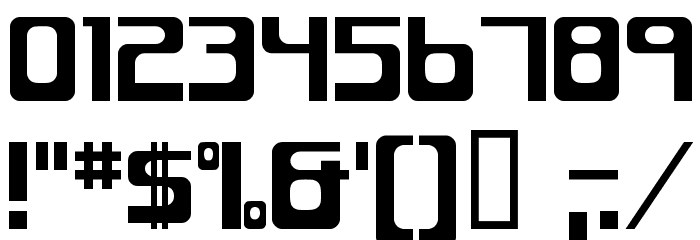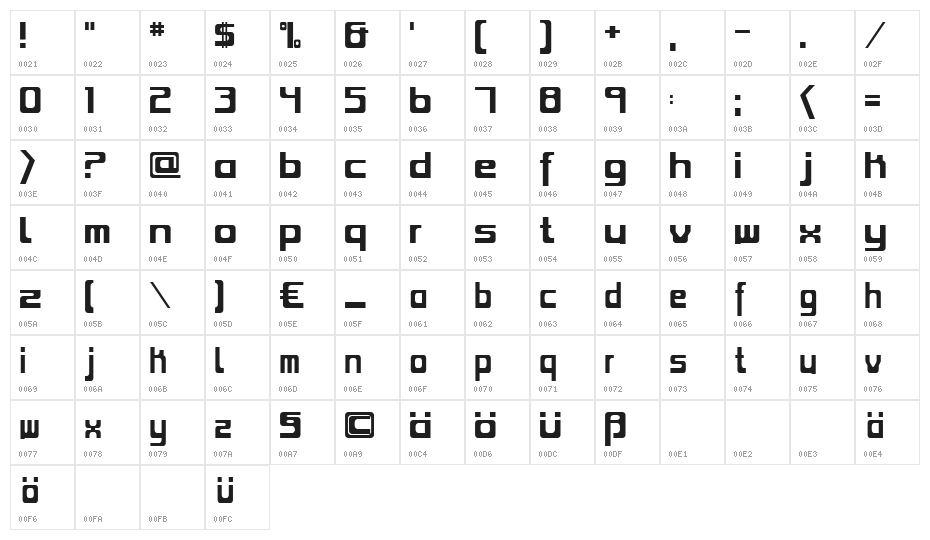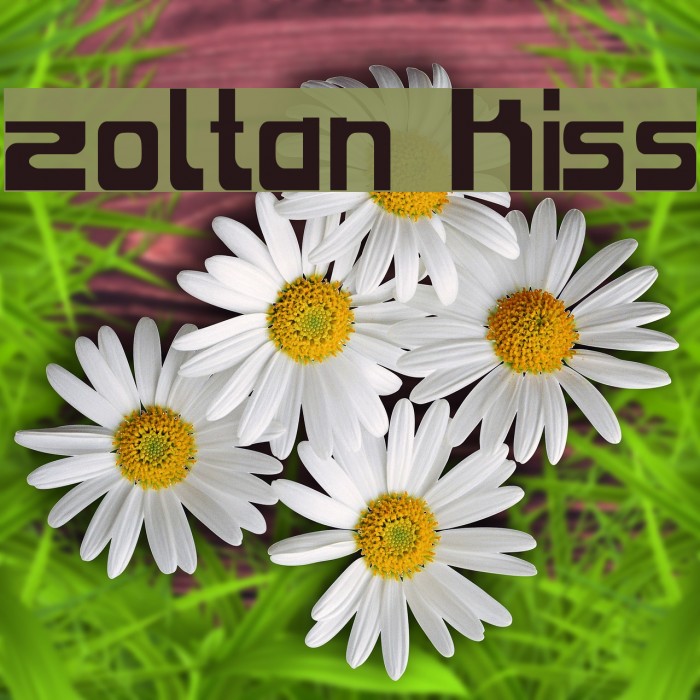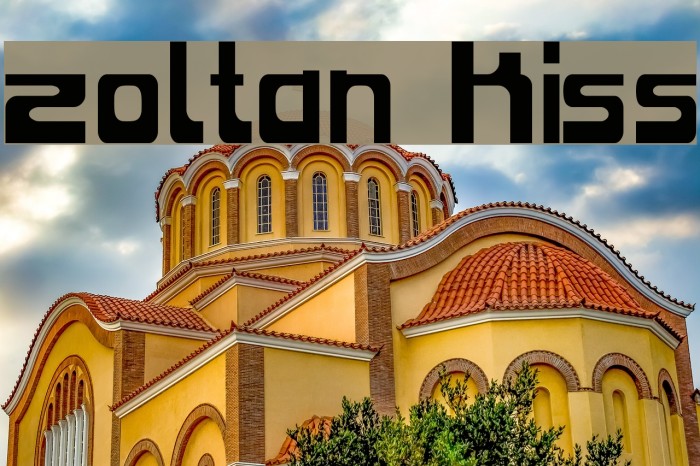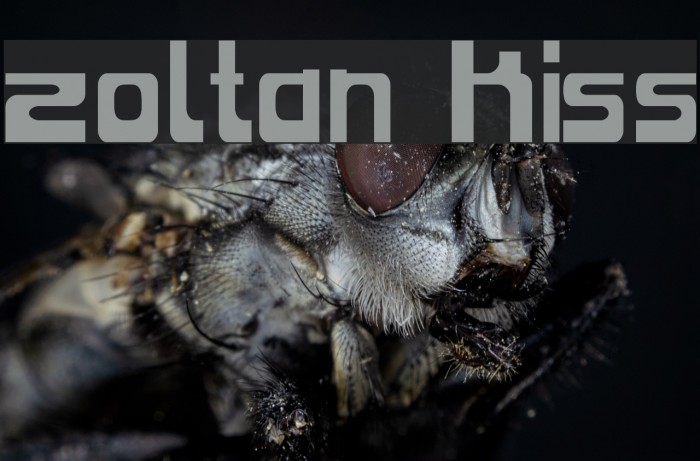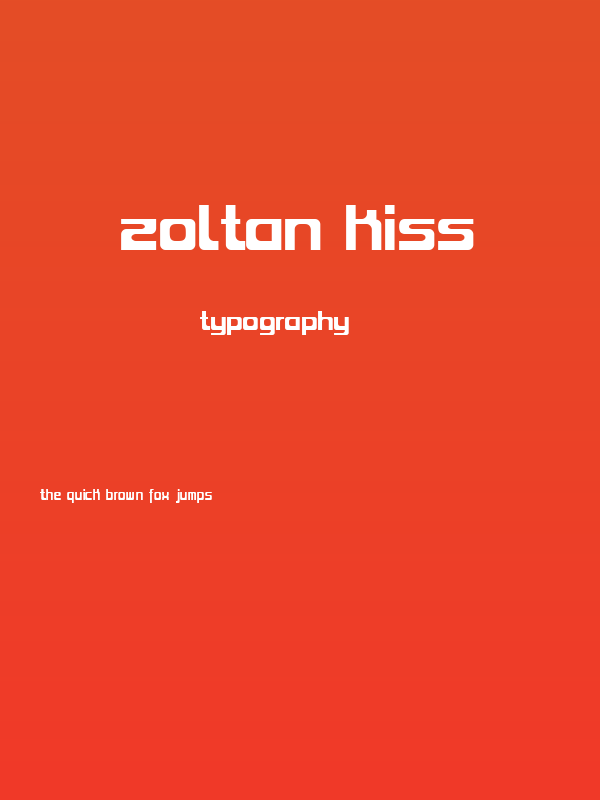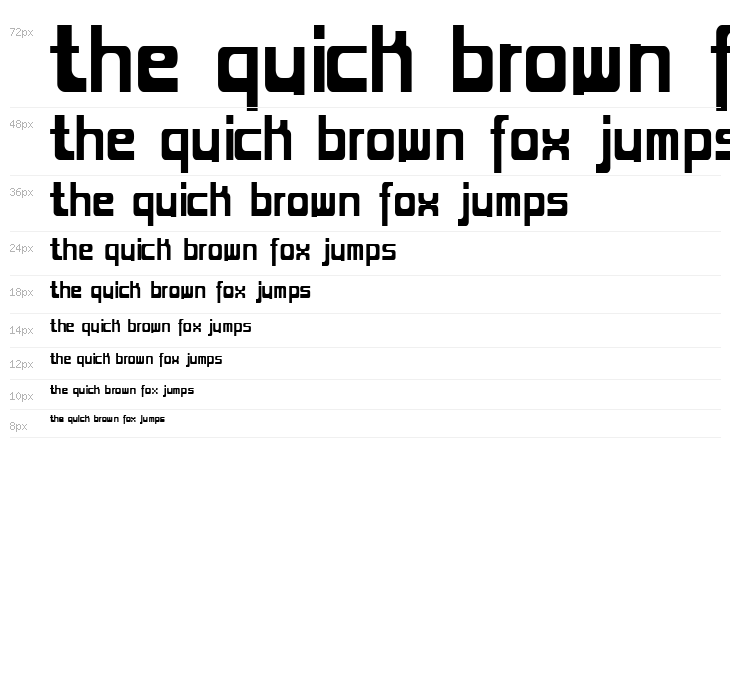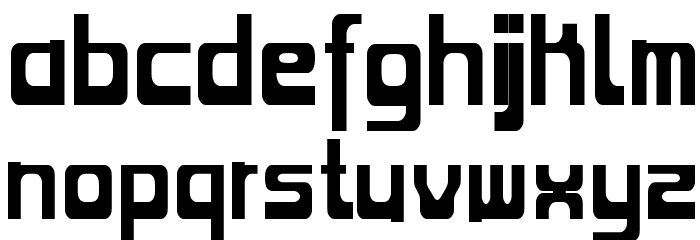
Zoltan Kiss Font
Zoltan Kiss Description
This font features a bold, geometric design with a modern and futuristic aesthetic. The characters are constructed with thick, uniform strokes and have a blocky appearance, giving them a strong and impactful presence. The uppercase and lowercase letters maintain a consistent style, with rounded edges that soften the overall look. The numerals and special characters follow the same design principles, ensuring a cohesive visual identity. The font's unique style makes it suitable for projects that require a contemporary and edgy feel.
| Proposed Projects | Ideal for branding, posters, headlines, and digital media that require a strong visual impact. |